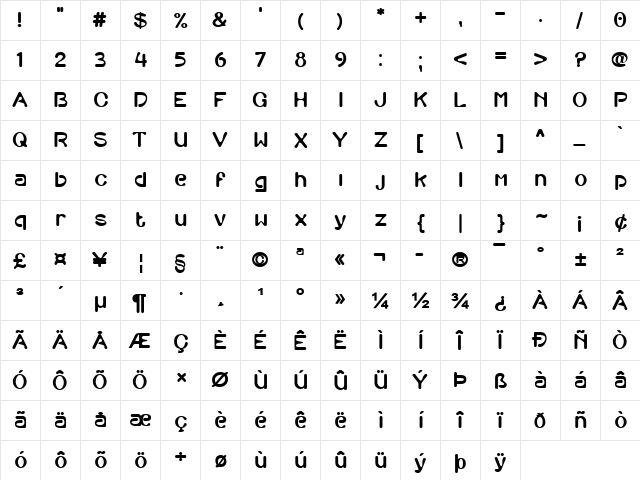
DS-Orange Bold Font Preview
DS-Orange Bold
DS-Orange Bold Font Details
Design Context for DS-Orange Typeface
DS-Orange offers clean, dependable letterforms without strong stylistic allegiance, making it a practical choice for designers who need flexibility. The heavy weight commands attention and anchors typographic hierarchies.